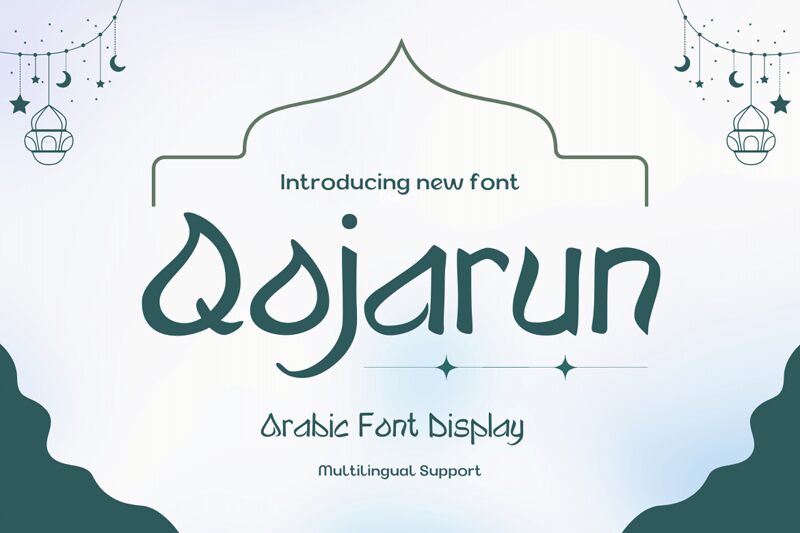
Qojarun, an exquisite creation by twinletter, is a captivating foreign font that adds an air of mystique to any project.
Its semi-light weight effortlessly blends elegance with readability, making it ideal for web design, branding materials, and even book covers. With its faux Arabic style, Qojarun transports readers to distant lands, making it perfect for travel blogs or cultural magazines. Whether you're seeking a touch of exoticism for your restaurant menu or aiming to infuse your fashion line with a hint of otherworldliness, Qojarun will surely elevate your creative endeavors to new heights.